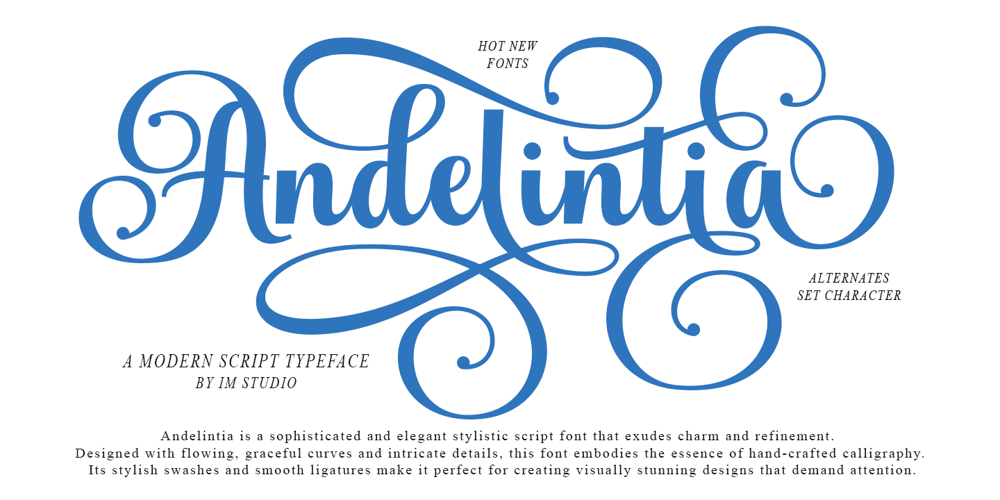
Andelintia Font Family was designed by Ikhsan Maulana and published by IM Studio. Andelintia contains 1 styles and family package options. Andelintia is a sophisticated and elegant script font that exudes charm and refinement. Designed with flowing, graceful curves and intricate details, this font embodies the essence of handmade calligraphy. Its stylish swashes and delicate ligatures make it perfect for creating visually stunning designs that draw attention.Andelintia is versatile and well-suited for a variety of applications, including wedding invitations, luxury brands, fashion labels, and high-end packaging. The font features a range of alternate characters and a style set, allowing for endless customization to achieve the perfect look for your project.With its timeless appeal and refined aesthetic, Andelintia brings a touch of elegance to any design, making it a great choice for those looking to add a sophisticated style to their work.